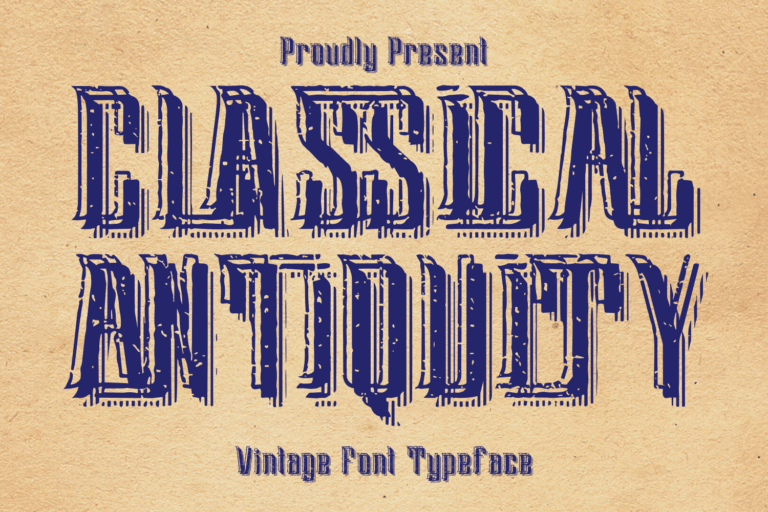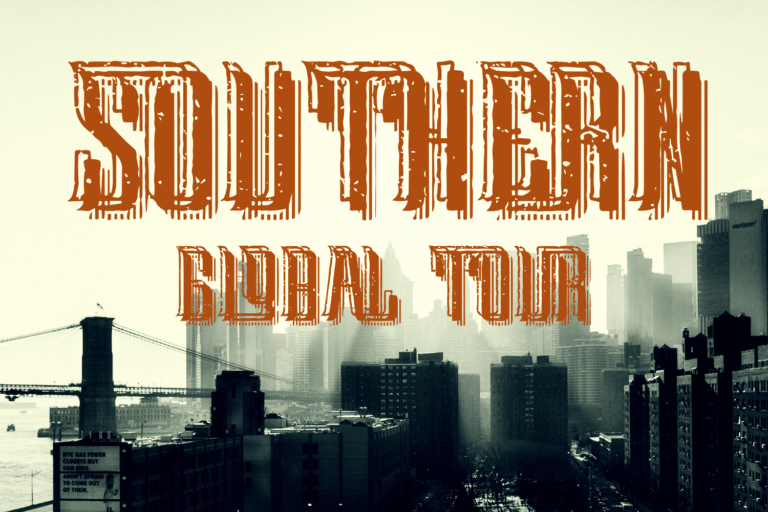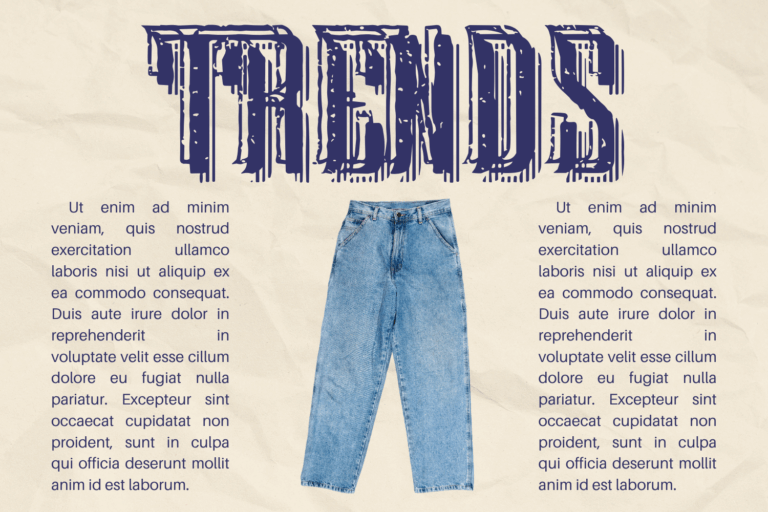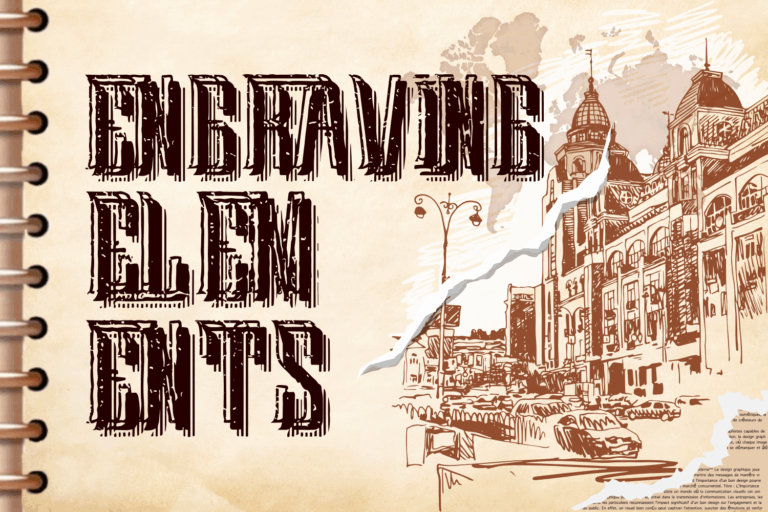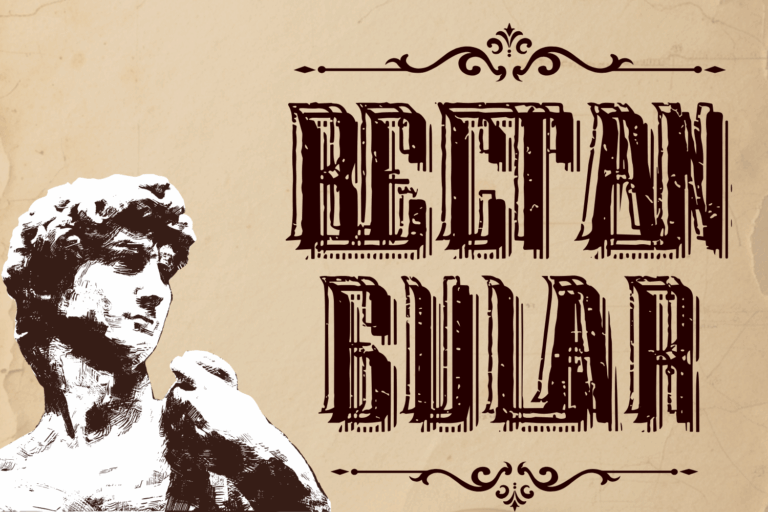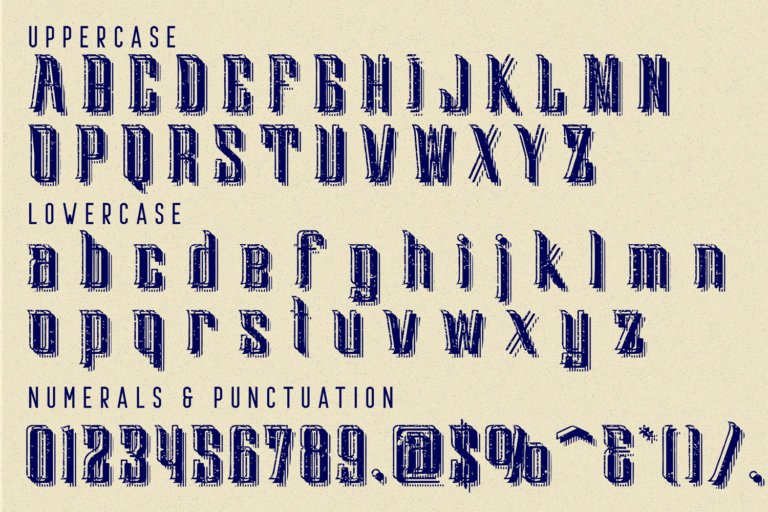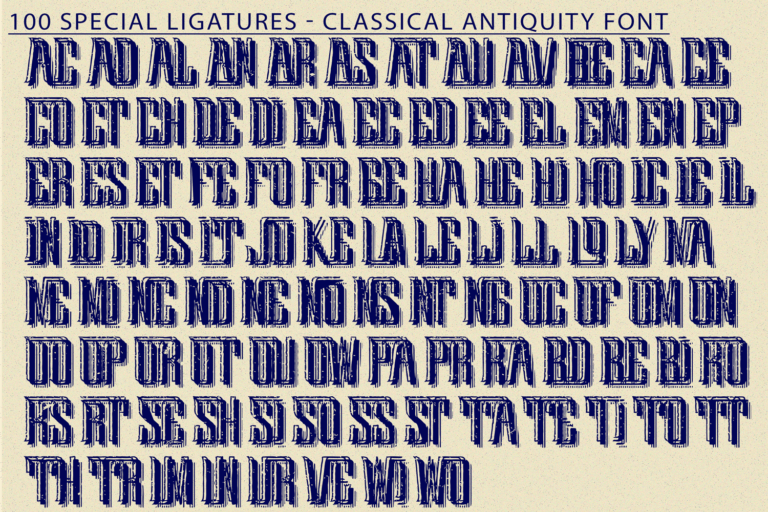
CLASSICAL ANTIQUITY FONT – Distressed Vintage Serif Display Font, high-impact vintage display typeface inspired by the elegance and decay of classical antiquity. With its distressed letterpress texture, elongated serifs, and engraved-like forms, this font evokes the charm of old posters, historical documents, and early printing press aesthetics. Carefully crafted to capture the imperfect beauty of traditional wood type and hand-printed ink, CLASSICAL ANTIQUITY is ideal for branding, book covers, whiskey labels, Western-themed graphics, or anything that requires a touch of antique drama and authenticity.
🔤 Font Features:
• Full Uppercase & Lowercase Alphabet
• 100+ Special Ligatures to enhance typographic rhythm
• Numbers & Punctuation
• Multilingual Support with Accented Characters
• Authentic hand-distressed texture for a vintage print effect
🔤 About 100 ligatures combined with Stylistic Alternates Font:
AC AD AL AN AR AS AT AU AV BE CA CE CH CO CT DE DI EA EC ED EE EL EM EN EP ER ES ET FE FO FR GE HA HE HI HO IE IC IL IN IO IR IS IT JU KE LA LE LI LL LO LY MA ME MI NC ND NE NG NO NT NS OC OF OM ON OO OP OR OT OU OW PA PR RA RD RE RI RO RS RT SE SH SI SO SS ST TA TE TH TI TO TR TT UM UN UR VE WI WO